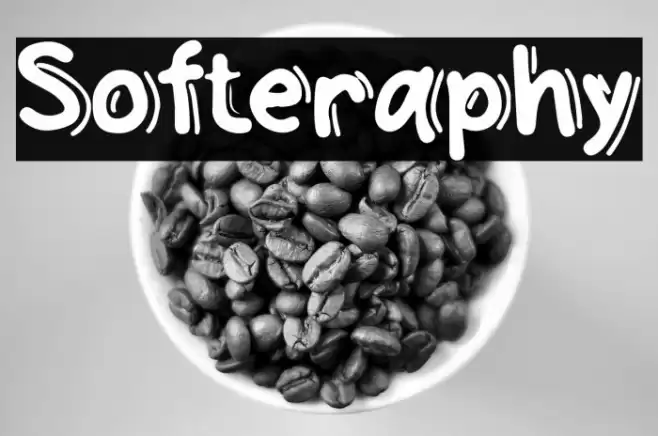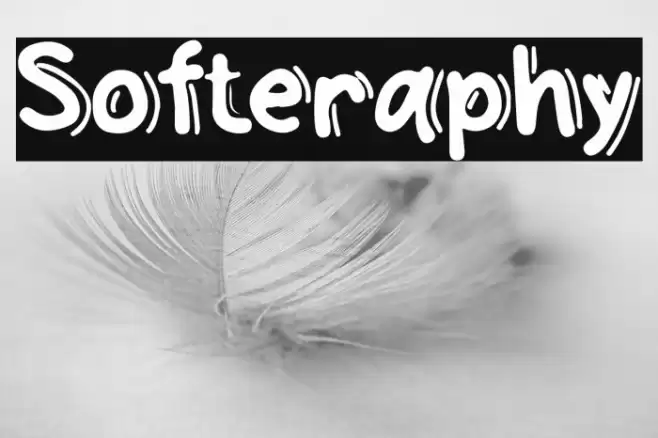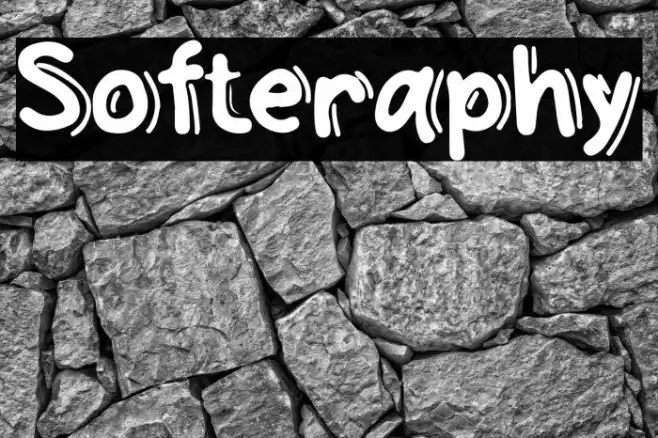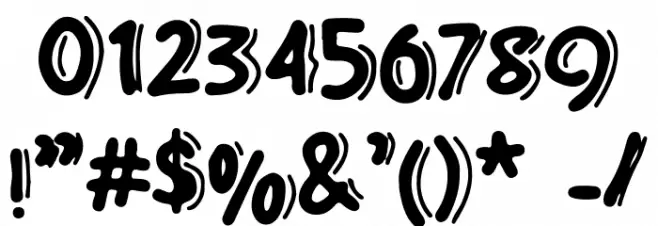
Softeraphy Font
Softeraphy Description
This font features a playful and dynamic style with a hand-drawn appearance. The letters are bold and slightly irregular, giving them a lively and energetic feel. The strokes are thick and rounded, contributing to a sense of warmth and friendliness. Each character has a unique flair, with varying widths and angles that create a sense of movement. The font includes both uppercase and lowercase letters, numbers, and a selection of special characters, all maintaining the same whimsical and bold aesthetic. It's perfect for projects that require a fun and informal touch.
A playful, hand-drawn font with bold, rounded strokes and a lively appearance from Cartoon fonts.
- Proposed Projects: Ideal for children's books, playful branding, party invitations, and creative posters.